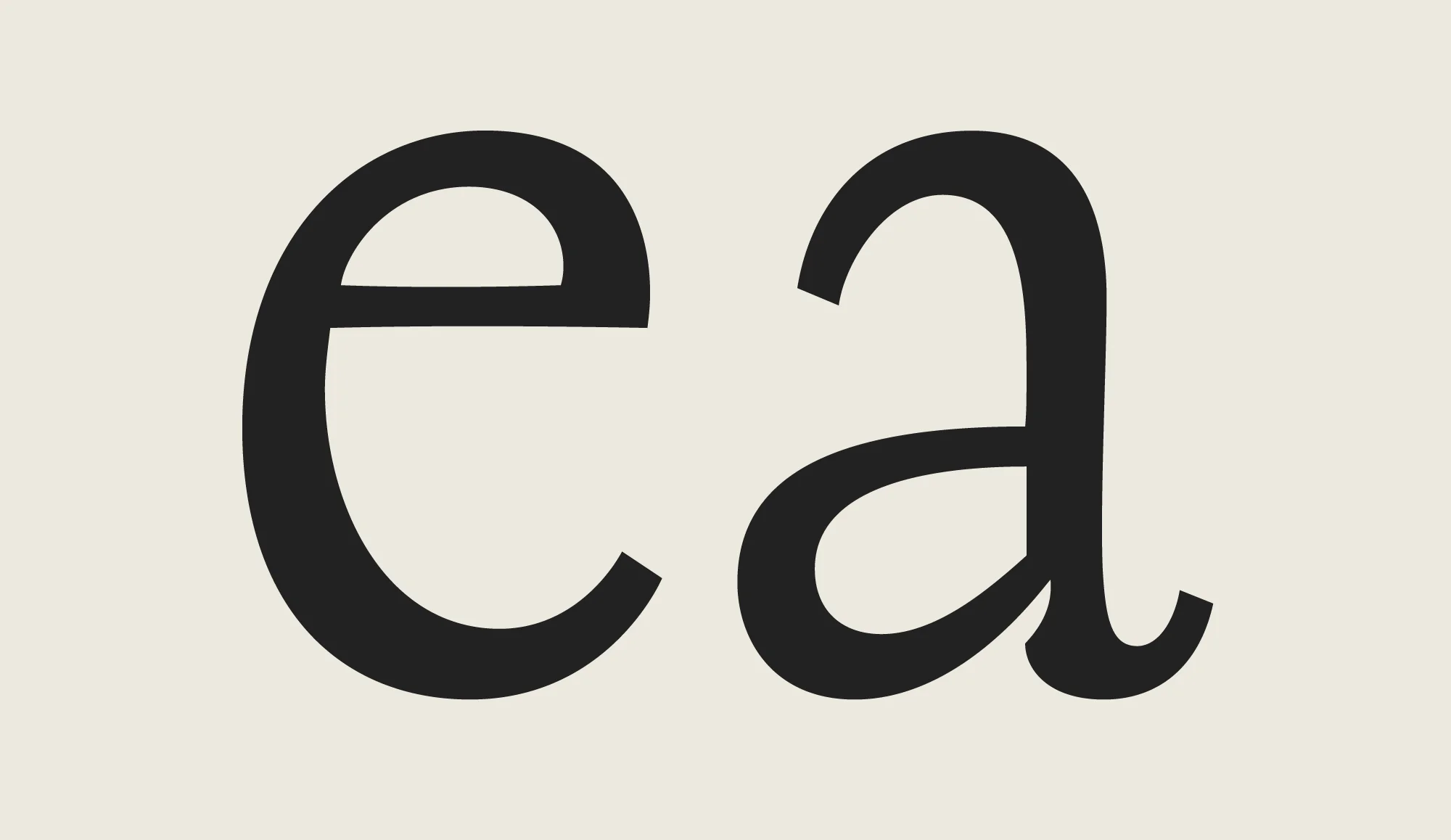
A serif typeface from HvD Fonts, likely suited to editorial and text-setting work.
Opal is a serif offering from HvD Fonts, a Munich-based foundry known for carefully crafted typefaces across text and display registers. Without full access to the product page, specific weight and style details remain unconfirmed. HvD Fonts consistently produce professional, well-spaced families aimed at demanding typographic environments.
Opal from HvD Fonts is likely a refined serif, consistent with the foundry's track record of high-quality text and display typefaces; without page access, classification defaults to transitional serif based on the name and foundry context.